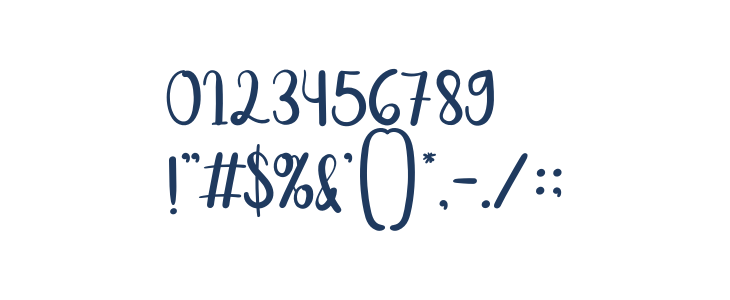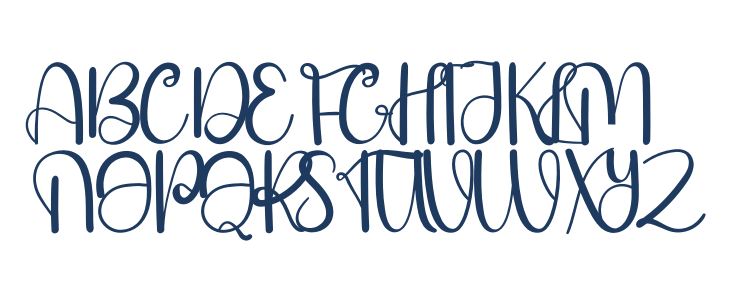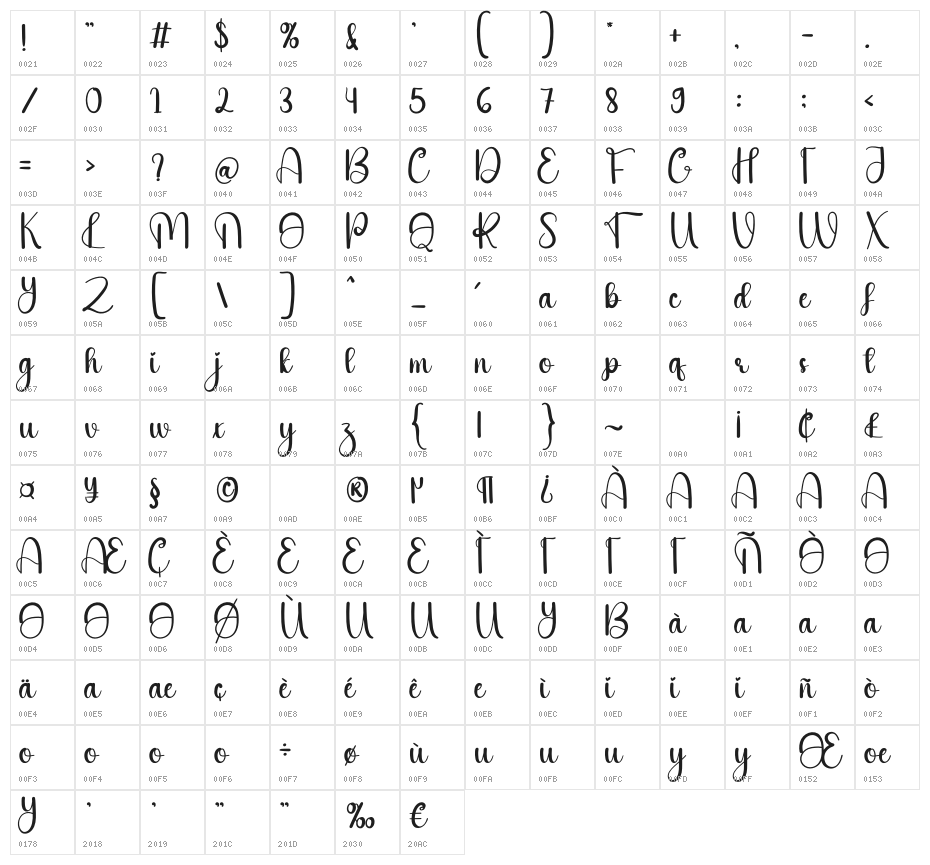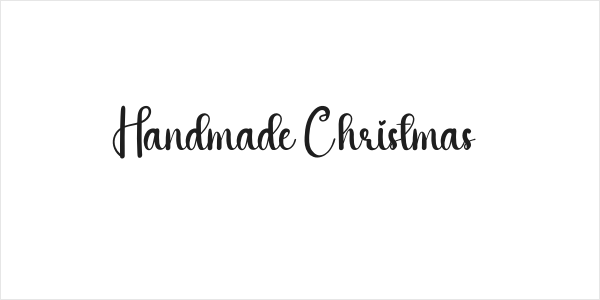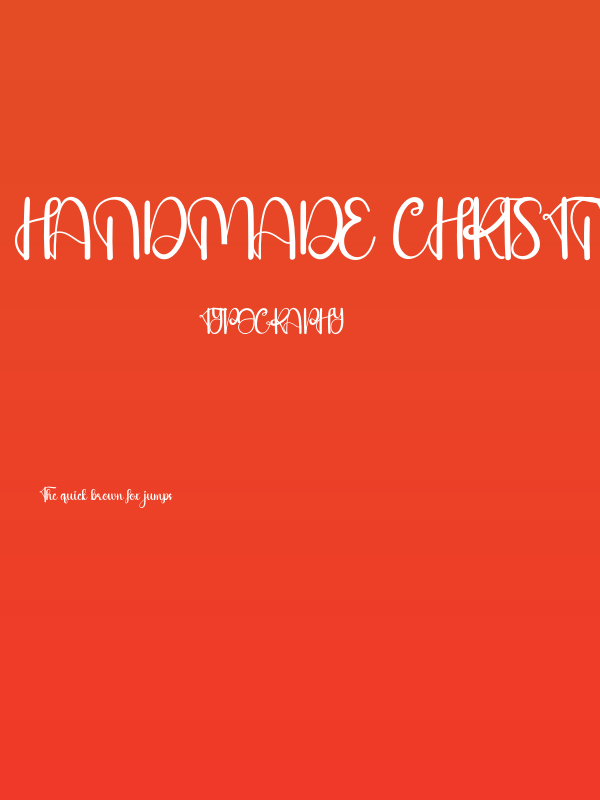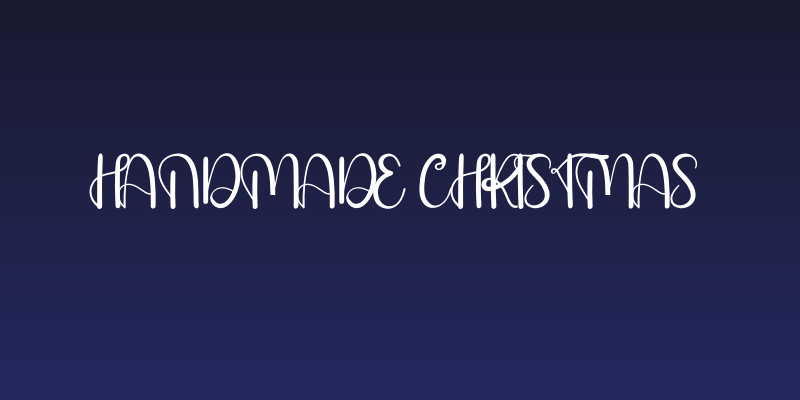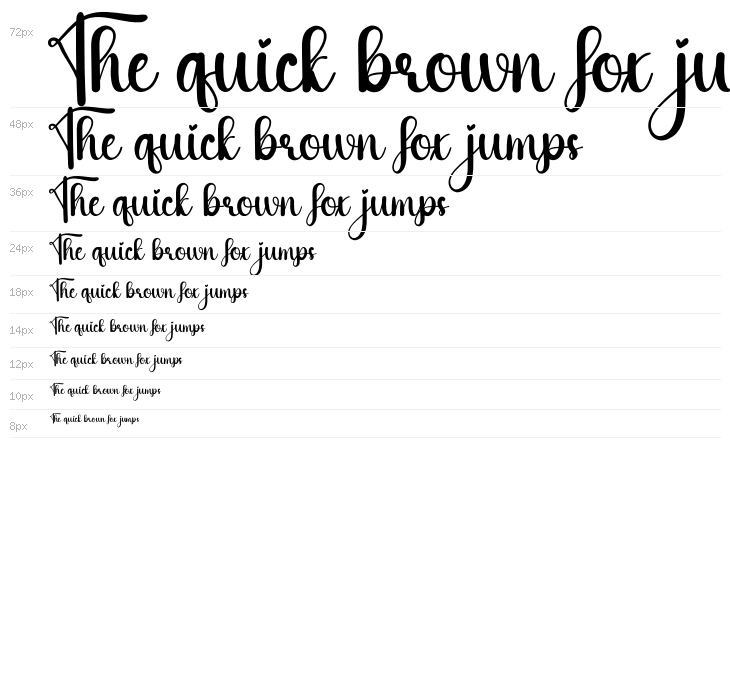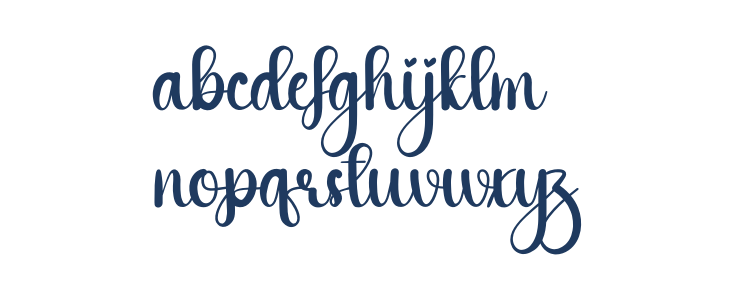
Handmade Christmas Font
Handmade Christmas Description
A playful, handwritten script font with flowing, connected strokes and a casual, festive appearance. The uppercase letters are tall and looping, while the lowercase letters have a friendly, rounded style. The numerals and punctuation maintain the same whimsical, hand-drawn quality.
| Overall Style | Decorative, Festive, Playful |
| Use Case | Greeting cards, Invitations, Decorative headlines, Branding |
| Proposed Projects | Holiday cards, invitations, gift tags, event posters, branding for creative businesses. |